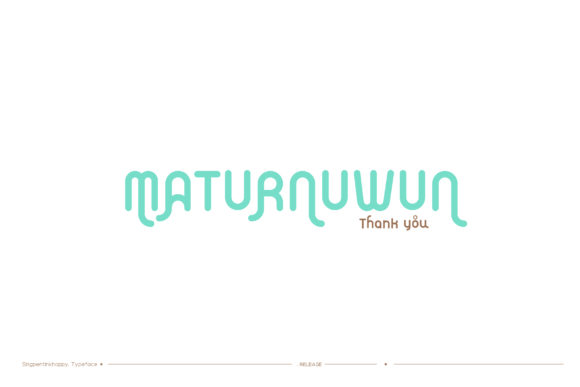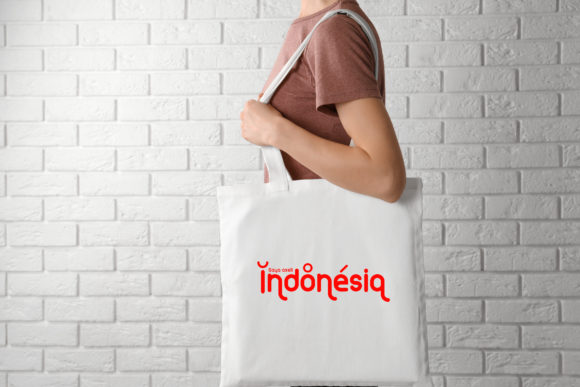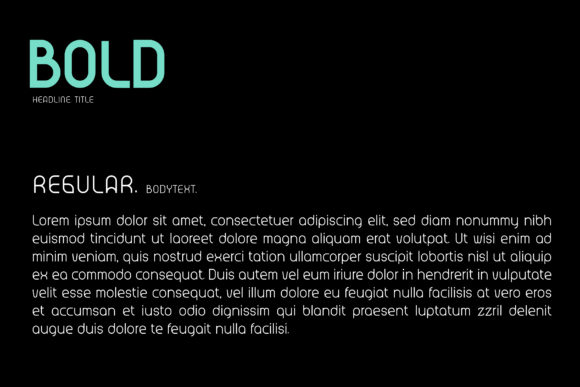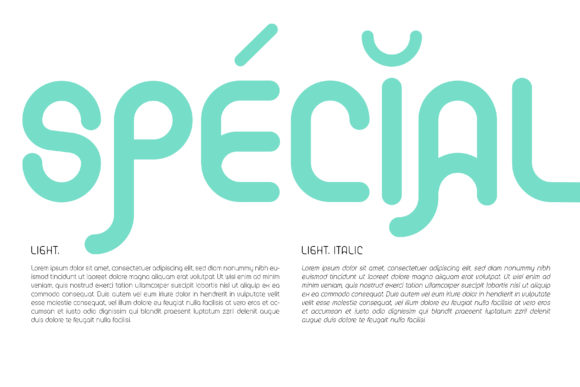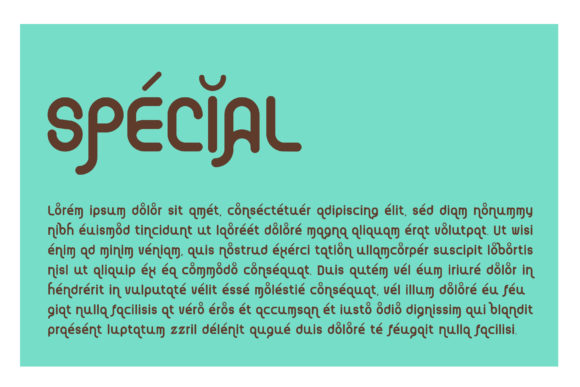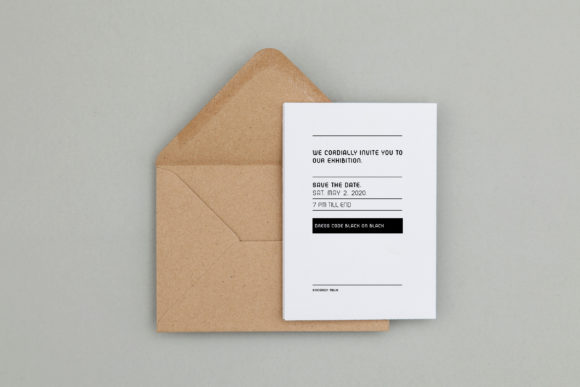
Introduction to Jekulo Font
Jekulo is a minimalist and sophisticated display font.
It features a classic style and it will elevate a wide range of design projects to the highest level, be it branding, headings, wedding designs, invitations, signatures, logos, labels, and much more .